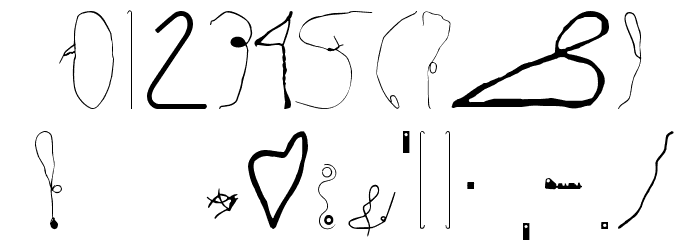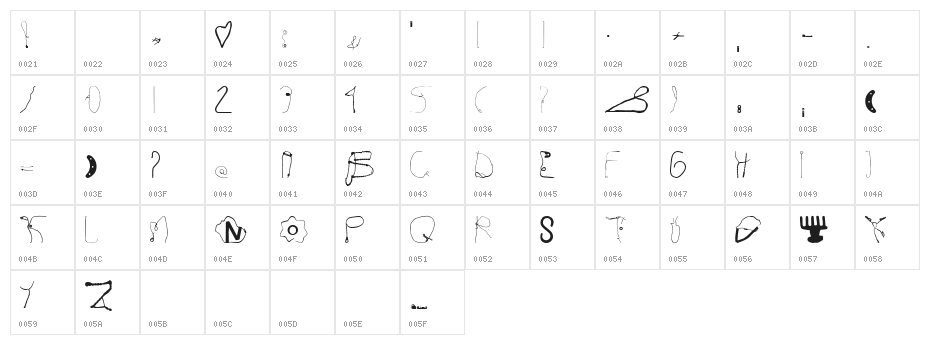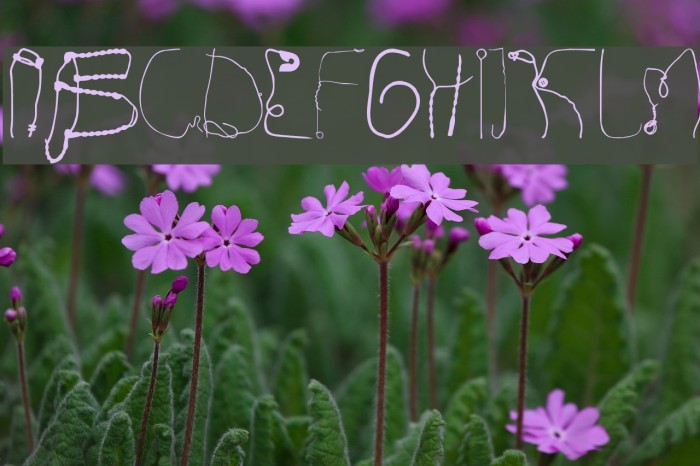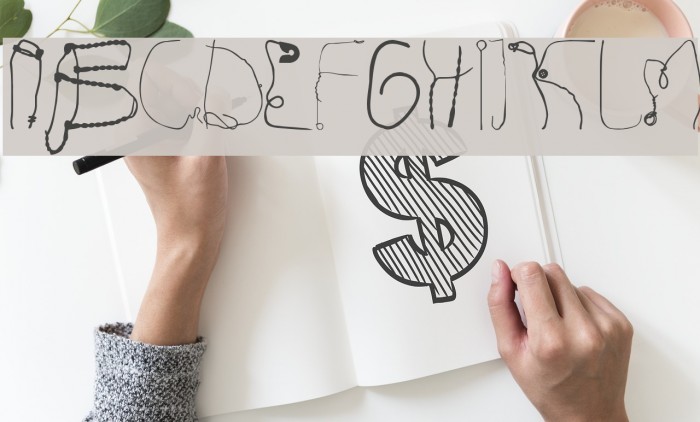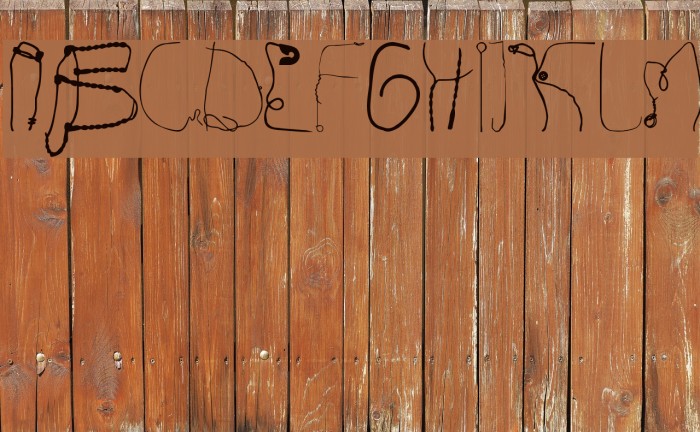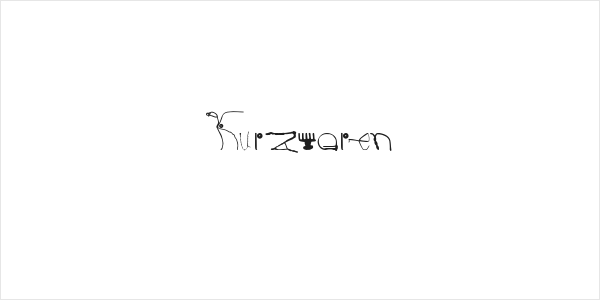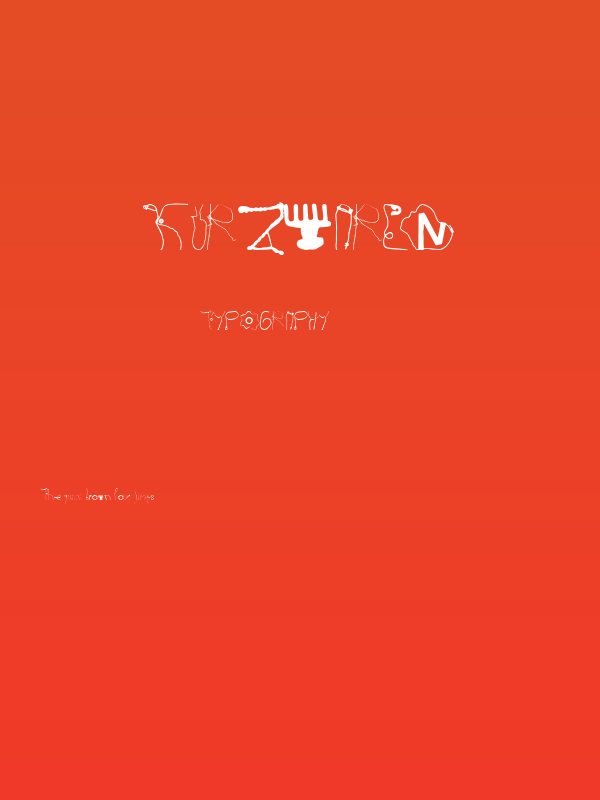
Kurzwaren Font
Kurzwaren Description
This font is a highly creative and decorative typeface that incorporates elements of sewing and crafting tools into its design. Each letter is uniquely formed using shapes reminiscent of needles, threads, buttons, and other sewing notions, giving it a whimsical and artistic appearance. The uppercase letters feature bold and intricate designs, while the lowercase letters maintain a more delicate and flowing style. Numbers and special characters continue the theme, integrating sewing-related motifs. This font is perfect for projects that require a touch of creativity and uniqueness, especially in the crafting or fashion industry.
| Use Case | Logos, Headlines, Creative Projects |
| Proposed Projects | Ideal for crafting projects, fashion branding, DIY blogs, and creative event invitations. |